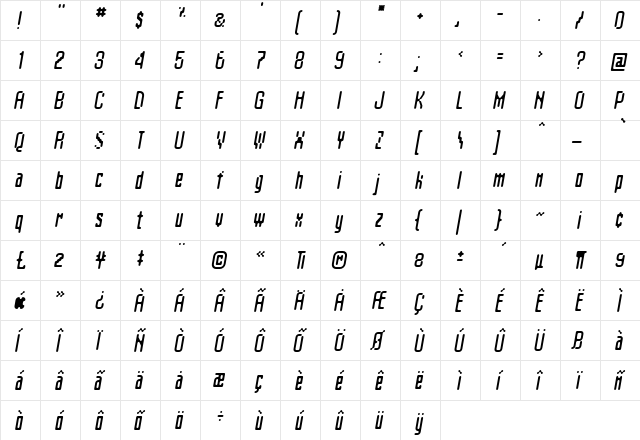
Matica NormalOblique Font Preview
Matica NormalOblique
Matica NormalOblique Font Details
Design Context for Matica Typeface
Matica is a composed and adaptable typeface that performs quietly and consistently across a wide range of design contexts. Its italic angle brings a sense of urgency and motion to the letterforms.